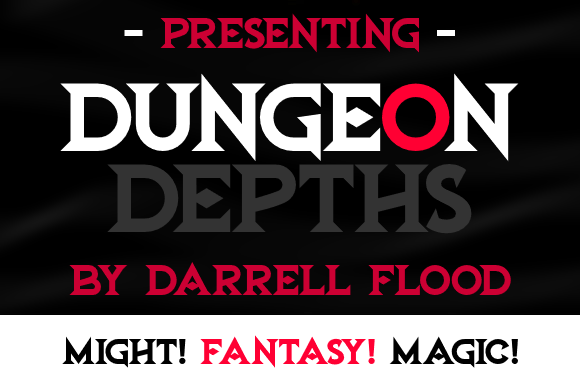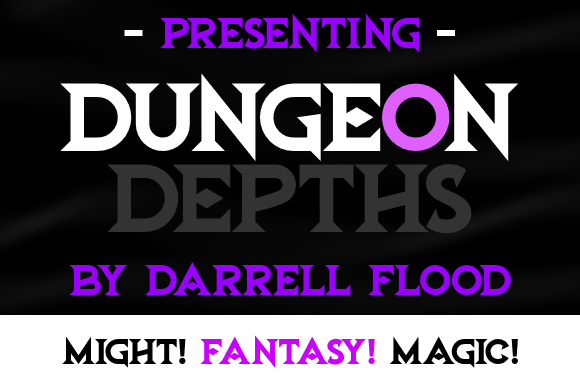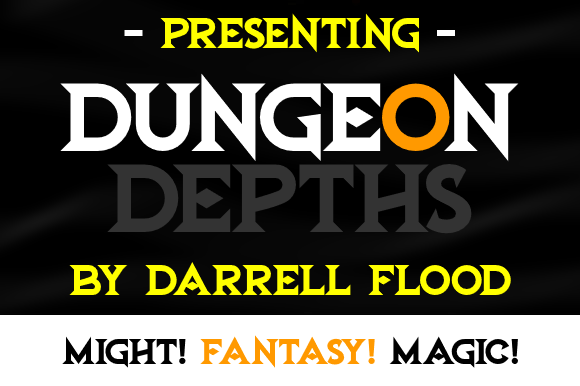
Dungeon Depths Font
About the Dungeon Depths Font
From logos to headlines, the Dungeon Depths Font is the perfect choice for making a lasting impression. An old school fantasy style font in a sharp angular style. Perfect for role playing adventures, dungeon explorations, and general fiction use!
Dungeon Depths excels in headlines, posters, and branding for games, fantasy novels, or related products. Its sharp angles and strong forms command attention in large sizes, making it unsuitable for body text or UI elements where readability is paramount. Avoid using it for long paragraphs; its distinctive style can quickly become fatiguing.
The font’s personality is bold and assertive, conveying a sense of adventure and mystery. It pairs well with clean sans-serif fonts like Open Sans for contrast, providing readability where Dungeon Depths lacks it. For a more cohesive and stylized approach, consider pairing it with a complementary serif like Garamond, offering a touch of classic elegance to balance its angularity.
For a truly dramatic effect, a subtle script font could be used sparingly as an accent. However, avoid pairing it with other highly decorative or heavily stylized fonts to prevent visual clutter.
Dungeon Depths Font Usage Examples
Dungeon Depths Font Example